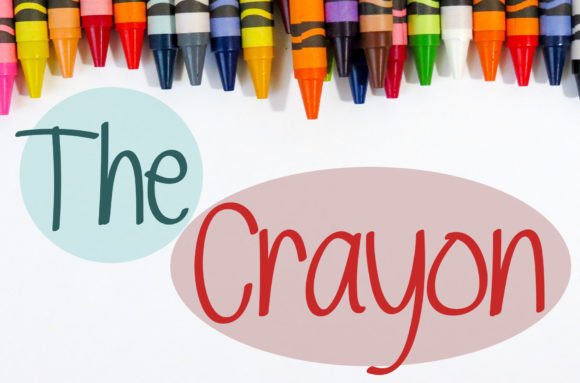
About The Crayon Font
“The Crayon” is a thin and soft handwritten font designed for daily use. Its unique and sweet strokes add a distinctive touch to your artwork, making it suitable for a variety of projects. You can confidently incorporate “The Crayon” into your designs, and the results are sure to be delightful.
The thin and soft characteristics of this font contribute to a gentle and approachable aesthetic. It brings a sense of subtlety and elegance to your text, making it versatile for a range of design applications.
The handwritten style of “The Crayon” adds a personal and authentic feel to your projects. This quality is especially valuable for designs that require a touch of warmth and individuality.
Whether used in daily communication materials, creative projects, or any other design endeavor, “The Crayon” stands out as a typeface that can enhance your overall visual composition.
The sweet strokes of this font contribute to its charm, making it visually appealing and suitable for projects where a softer and more inviting look is desired.
In summary, “The Crayon” is a thin and soft handwritten font that brings a unique and sweet quality to your designs. Its versatility and suitability for daily use make it a valuable asset for designers looking to add a touch of elegance and warmth to their projects.